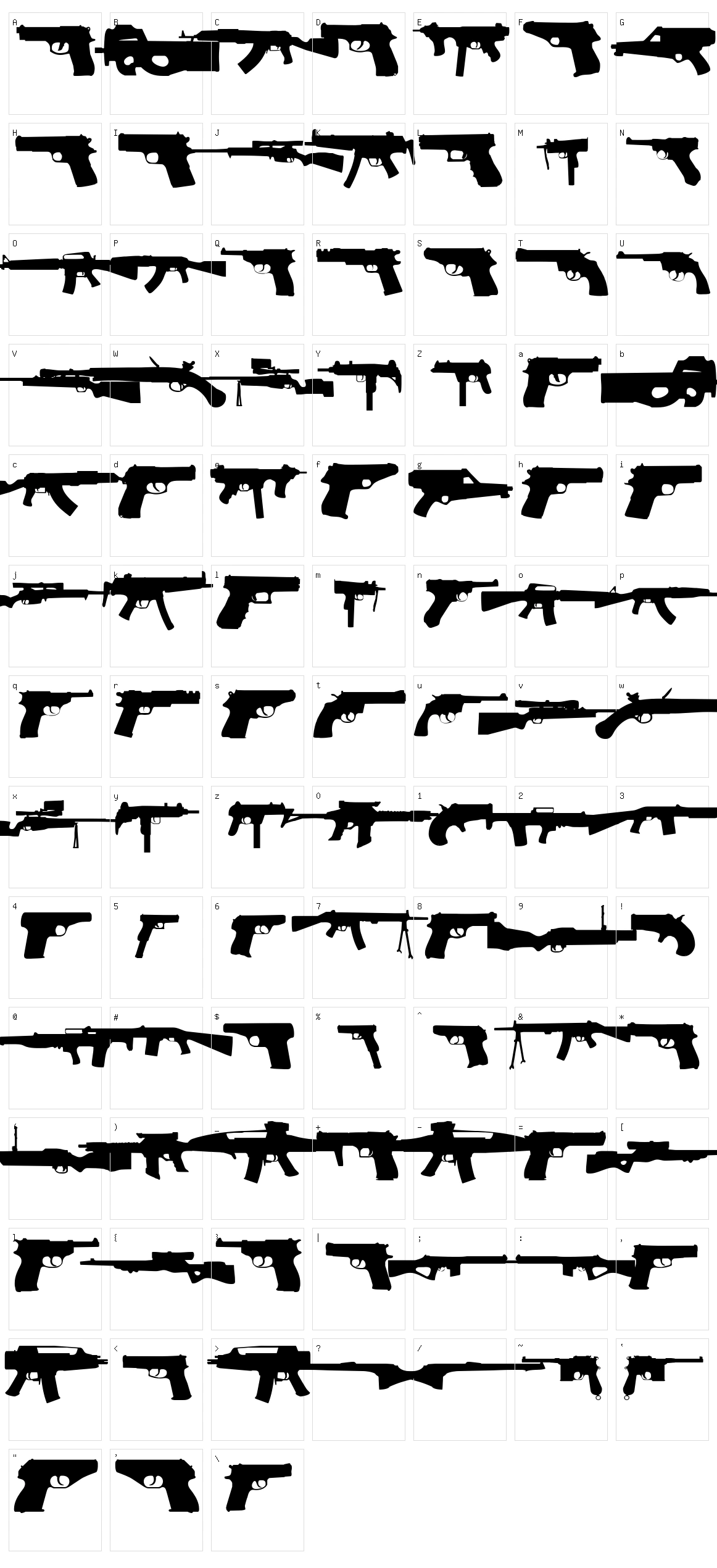
2nd Amendment
Designed by: Iconian Fonts
This is a dingbat font with over 45 glyph symbols of pistols and rifles.
Most symbols have a mirrored counterpart between the upper and lower cases. Use of a character map program, such as Windows' Character Map, will be very helpful in exploring and using this font.